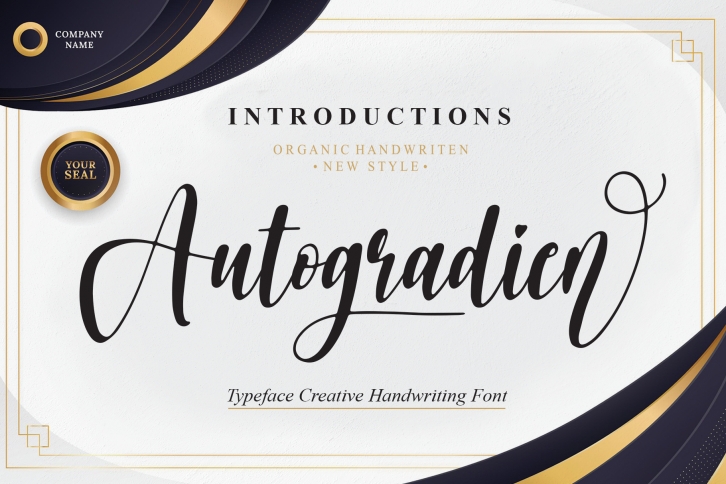
Autogradien is a lovely and timeless handwritten font. It is the best choice for creating eye catching logos, branding and quotes. Every letter has a unique and beautiful touch, which will make your design come alive!